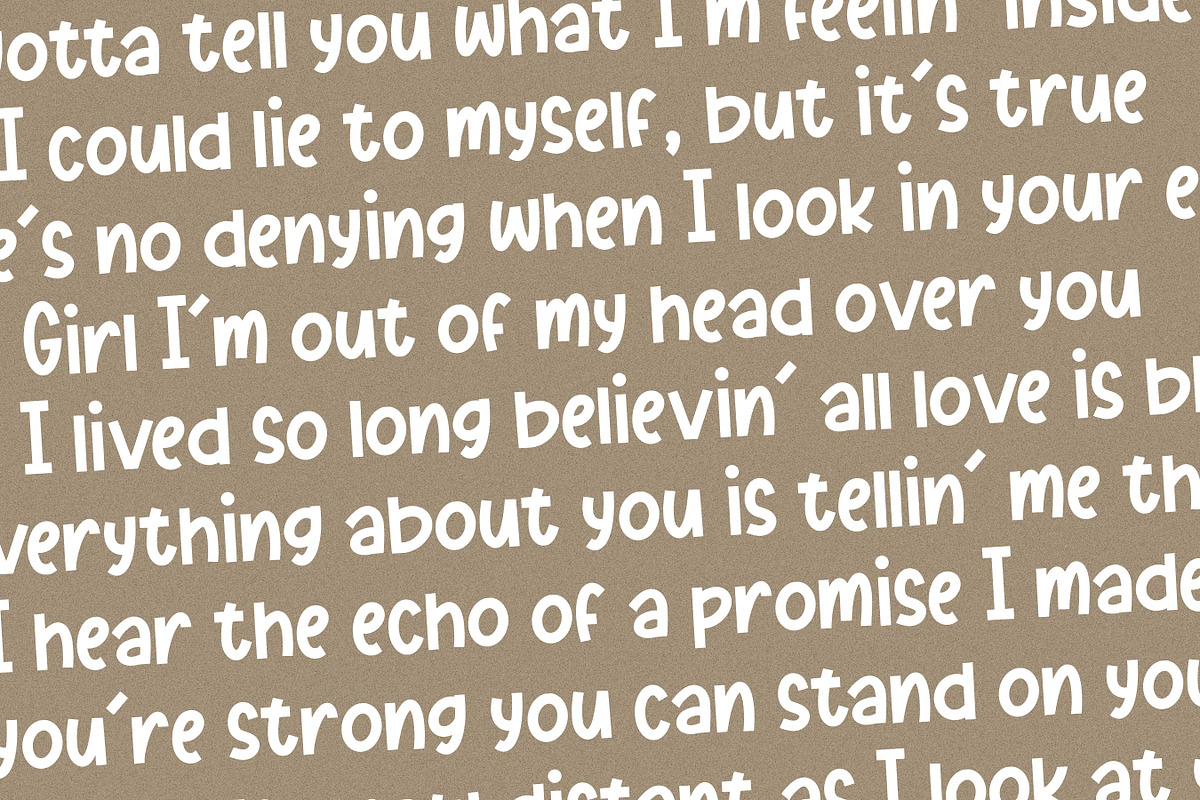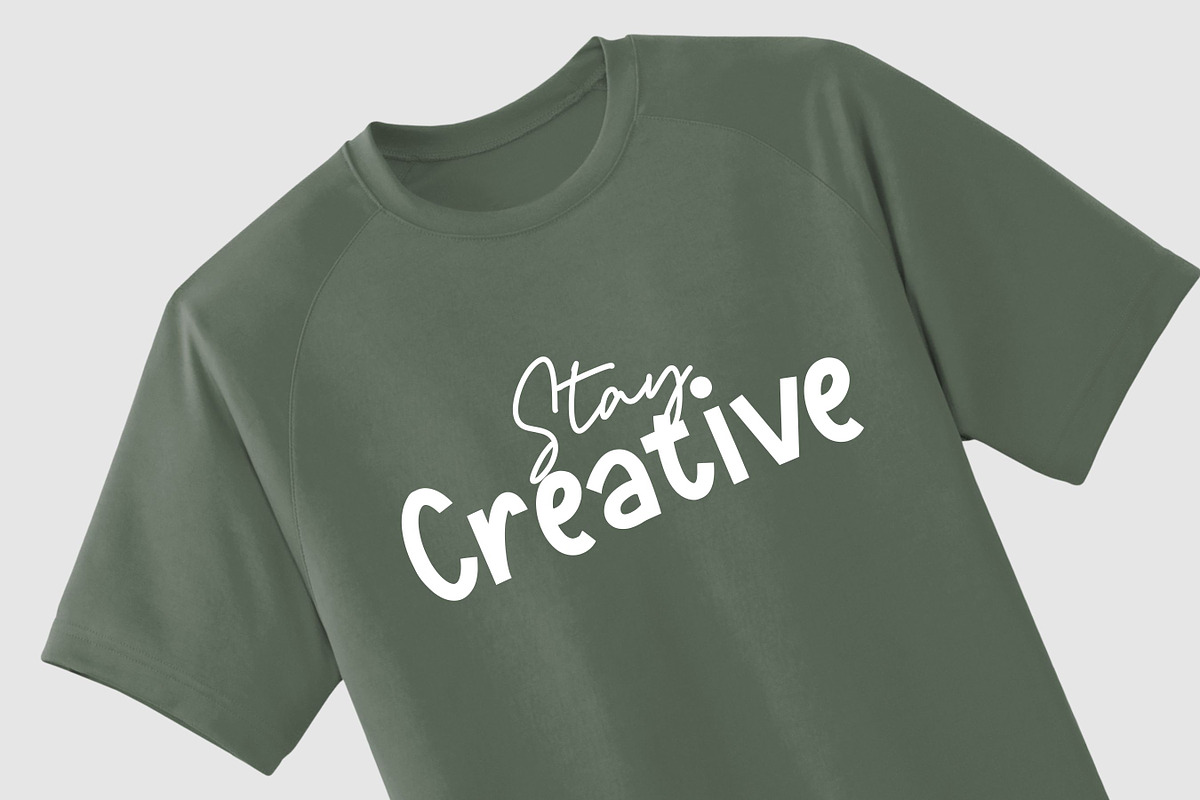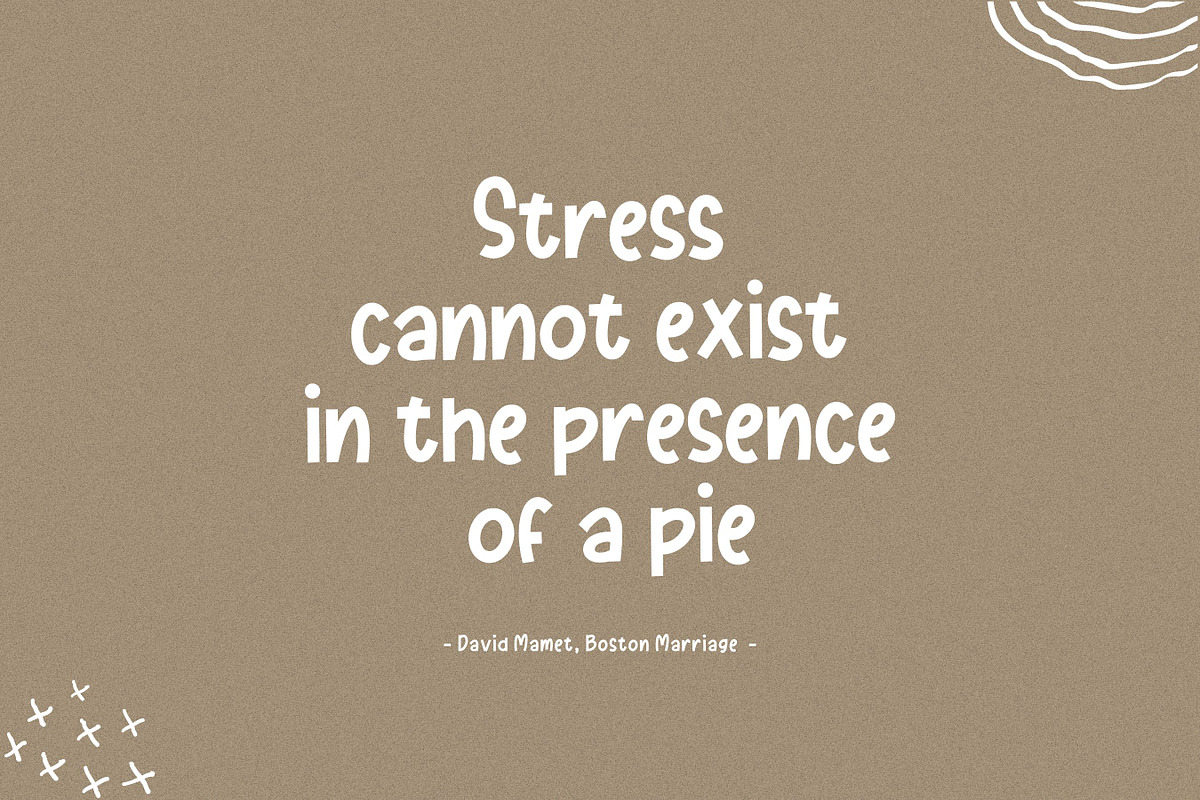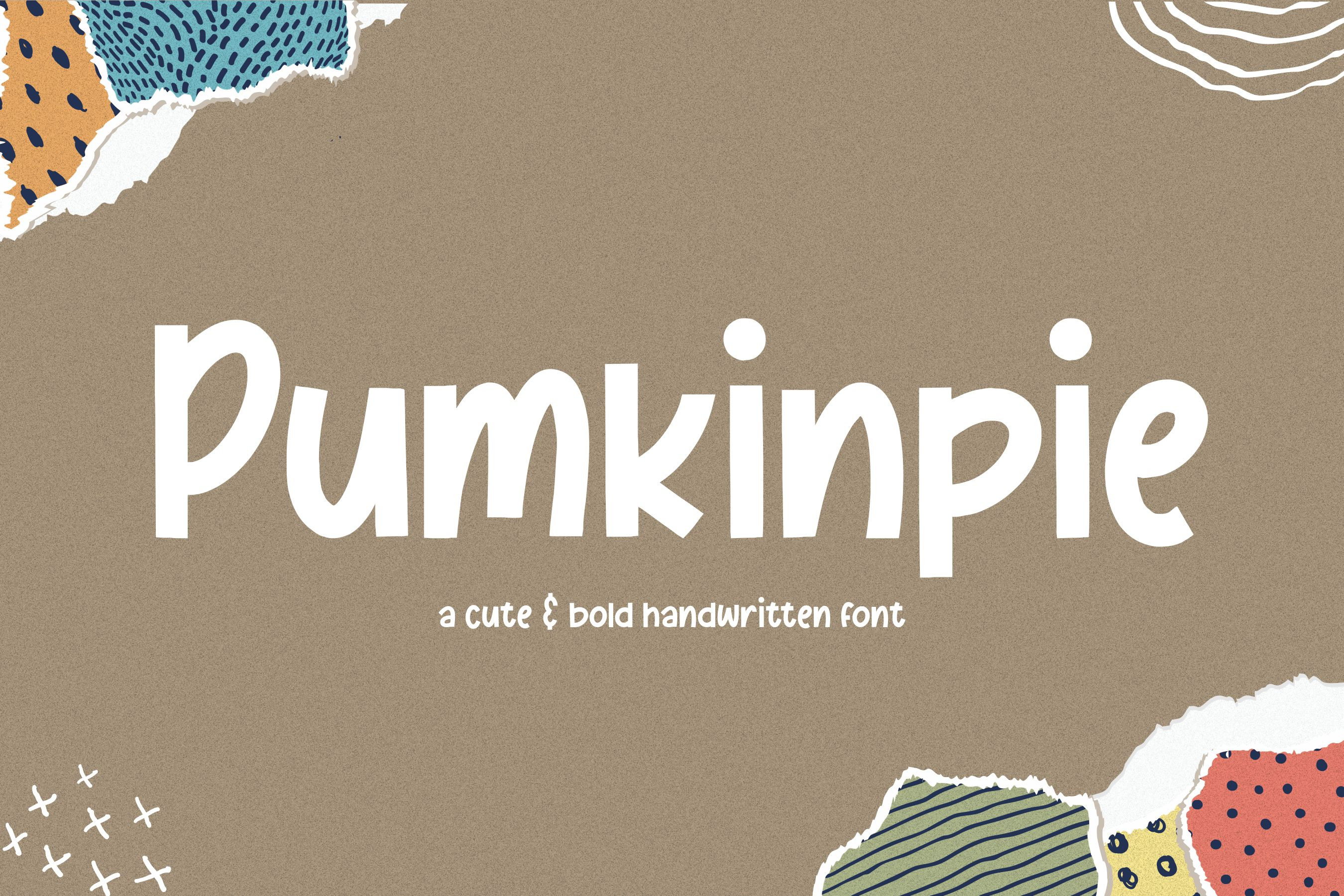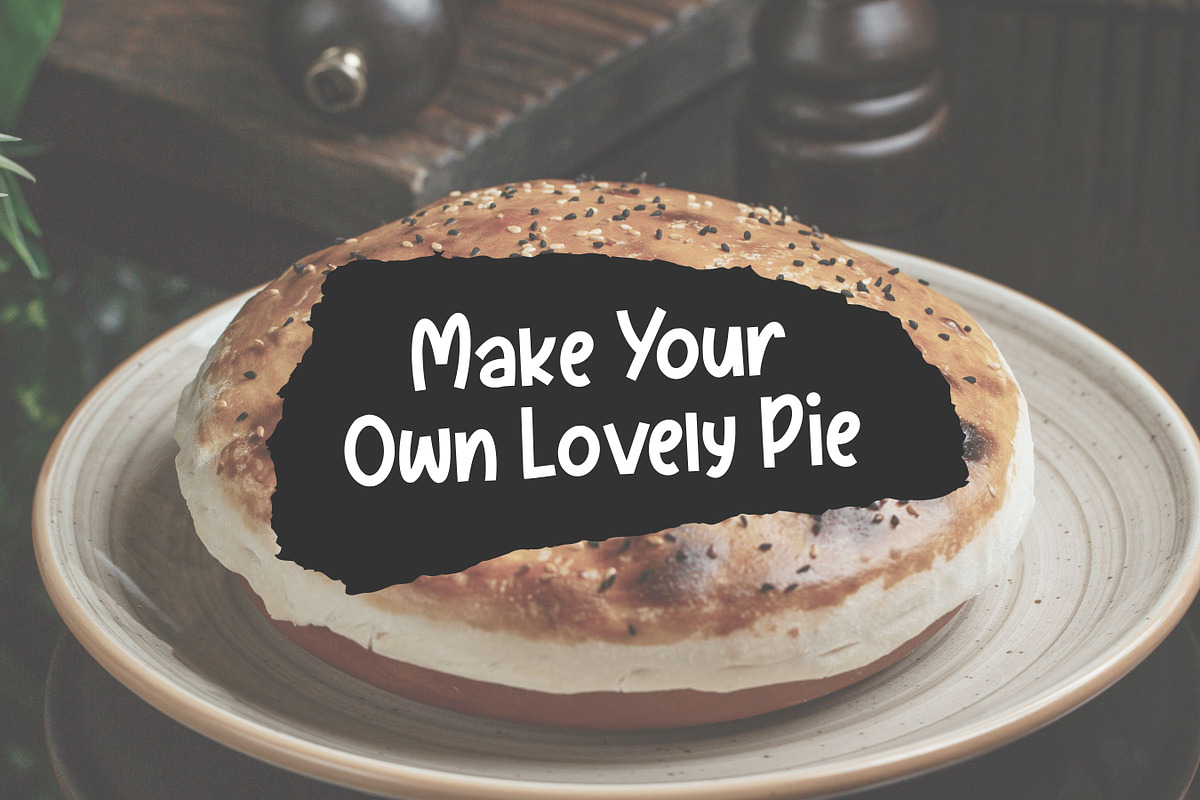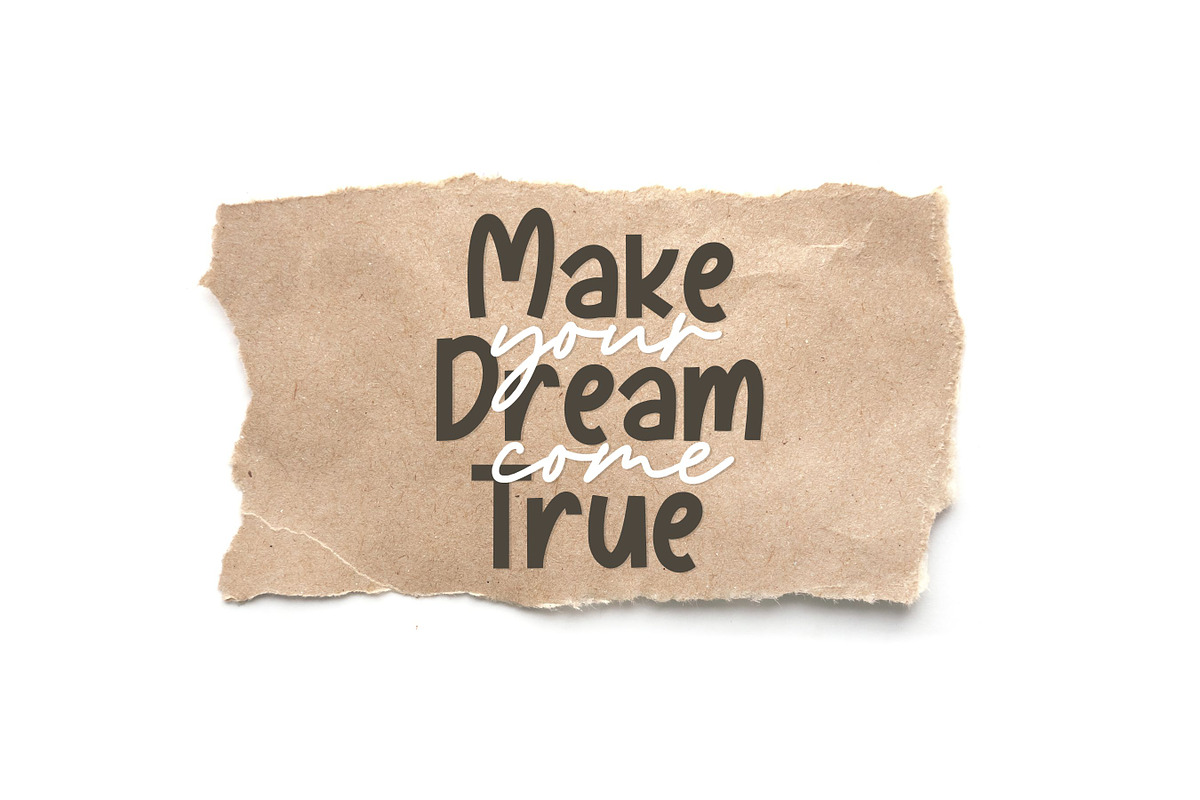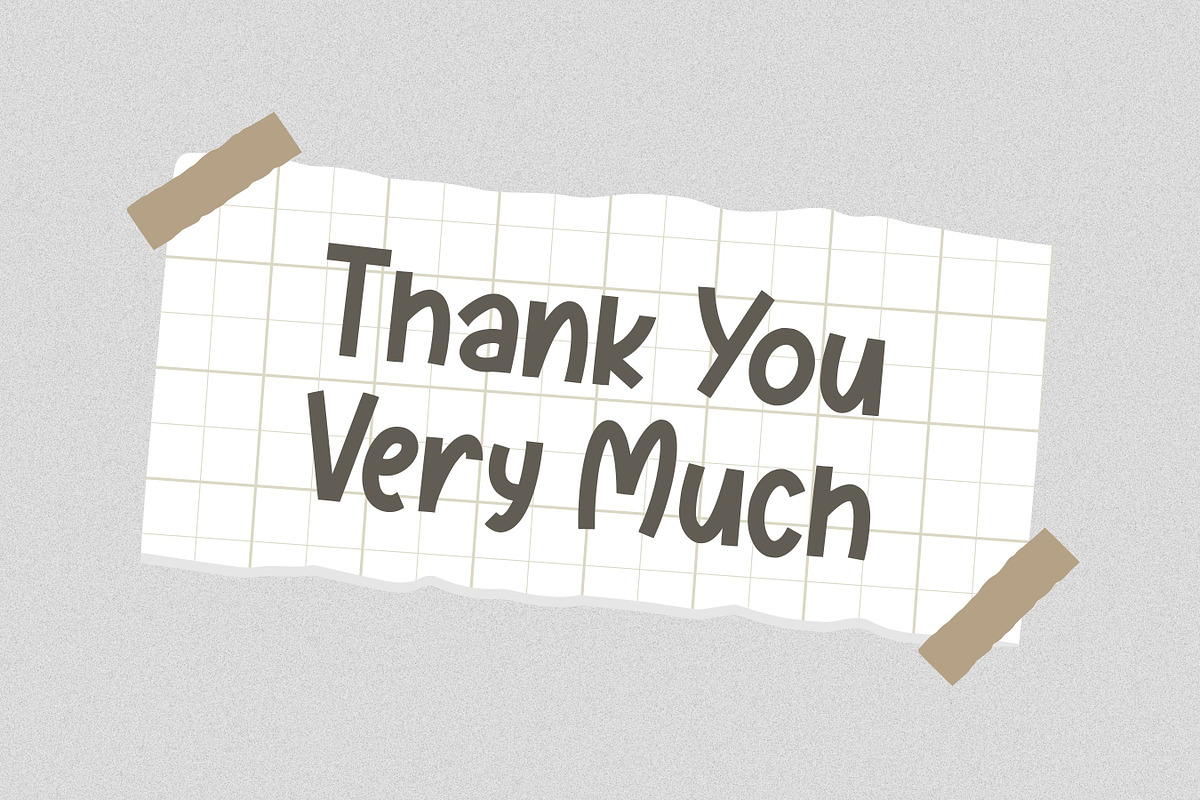
Pumkinpie - Bold Handwritten Font
Proudly Present, Pumkinpie Font
Pumkinpie is a cute and lovely handwritten font. Fall in love with its simple and neat style and use it to create gorgeous wedding invitations, beautiful stationary art, eye-catching social media posts, and much more!